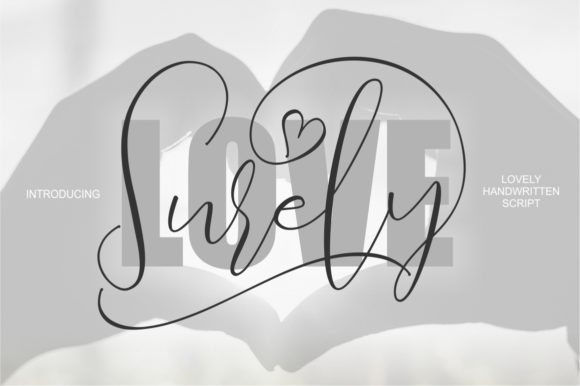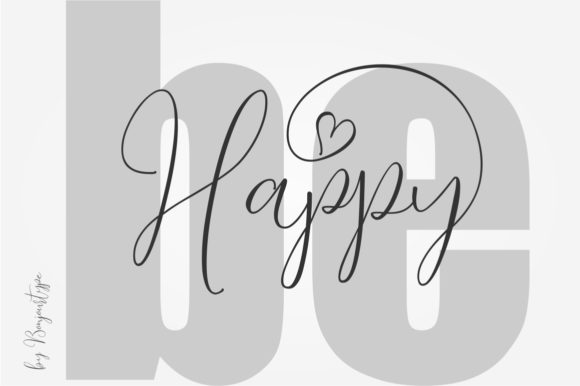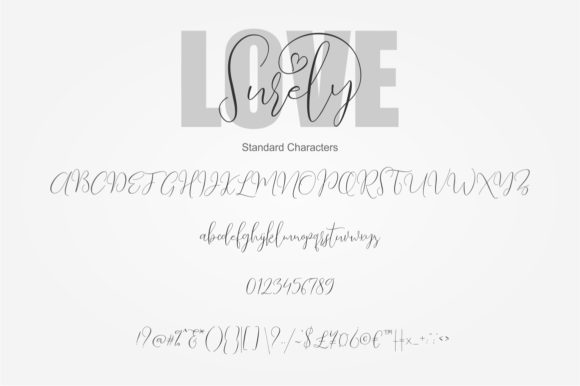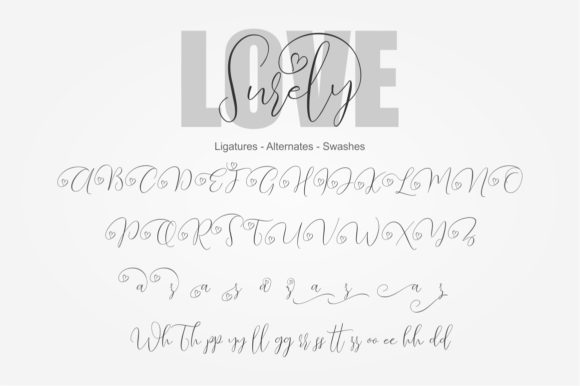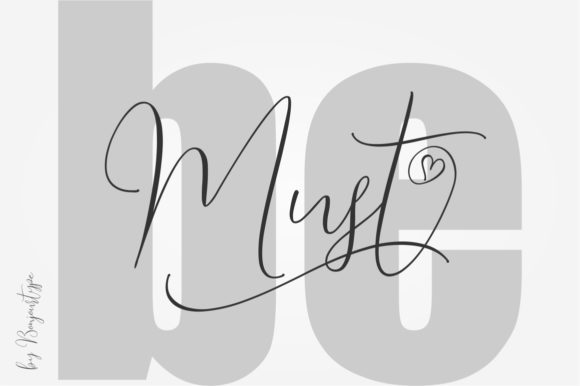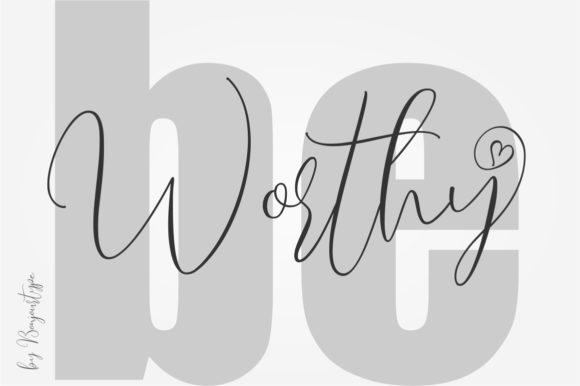
Love Surely Font
About Love Surely Font
The Love Surely is the perfect for to express your love. “Love must always be worthy of happiness”
It has an amazing elegant style and collaborates with the default Windows IMPACT font, very easy to find.